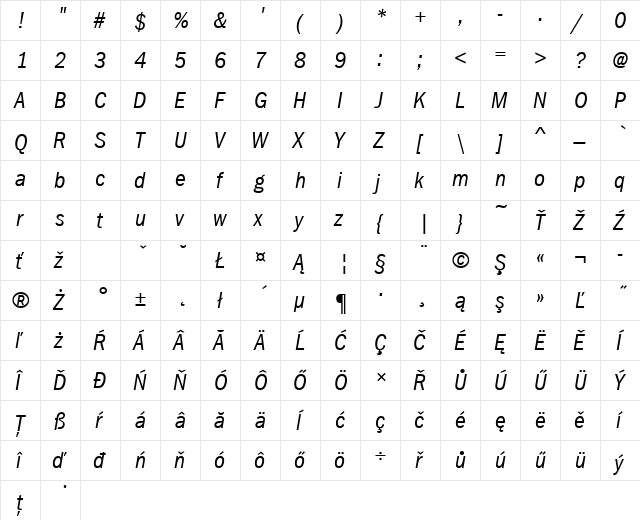
FranklinGotItcTEEBooCon Italic
Design Context for FranklinGotItcTEEBooCon Typeface
FranklinGotItcTEEBooCon offers clean, dependable letterforms without strong stylistic allegiance, making it a practical choice for designers who need flexibility. The slanted form adds forward momentum and visual energy.
Pro Tip: Try FranklinGotItcTEEBooCon for annotation and caption copy alongside an upright companion — the contrast in angle creates a dynamic but ordered typographic system.